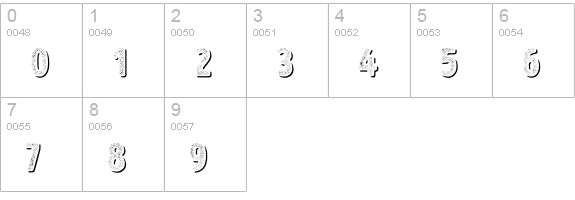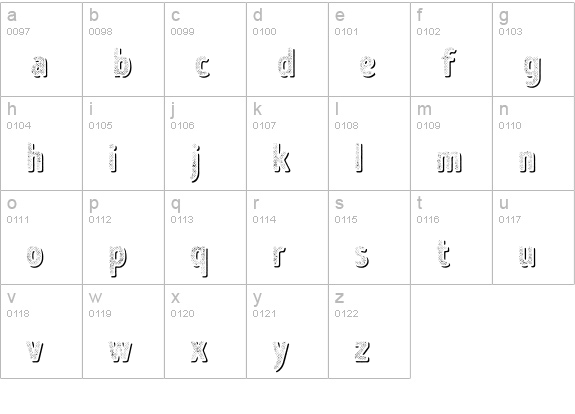
Intro Head H H2 Shade Font Details
The Intro Head H H2 Shade font is a striking and bold display font that commands attention with its unique design and modern aesthetic. The distinctive shadow effect adds depth and dimension to each character, making this font ideal for creating eye-catching headlines, titles, and branding materials. Best of all, this font is available for free download at FontsMarket.com, making it easily accessible for designers and creatives looking to add a touch of sophistication and style to their projects. Whether you're working on a poster, logo, or website design, the Intro Head H H2 Shade font is sure to make a statement and leave a lasting impression. Download it today and elevate your designs with this versatile and impactful typeface.